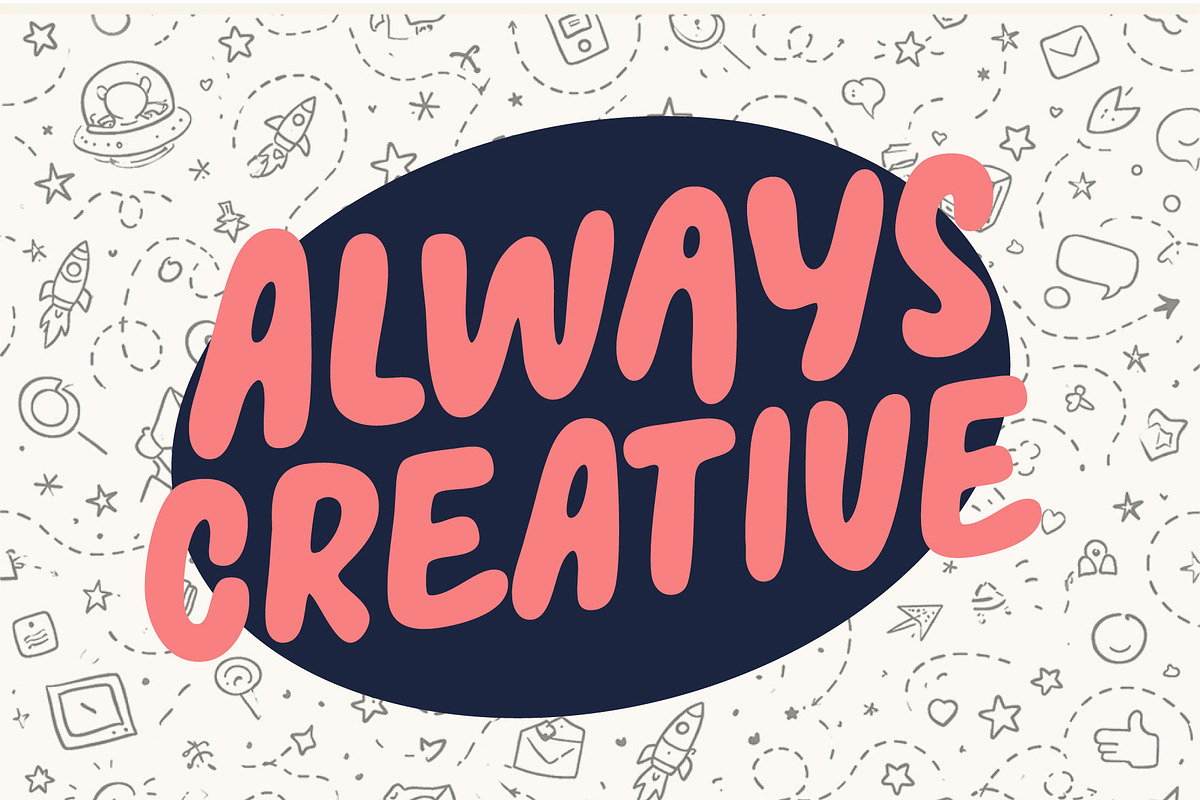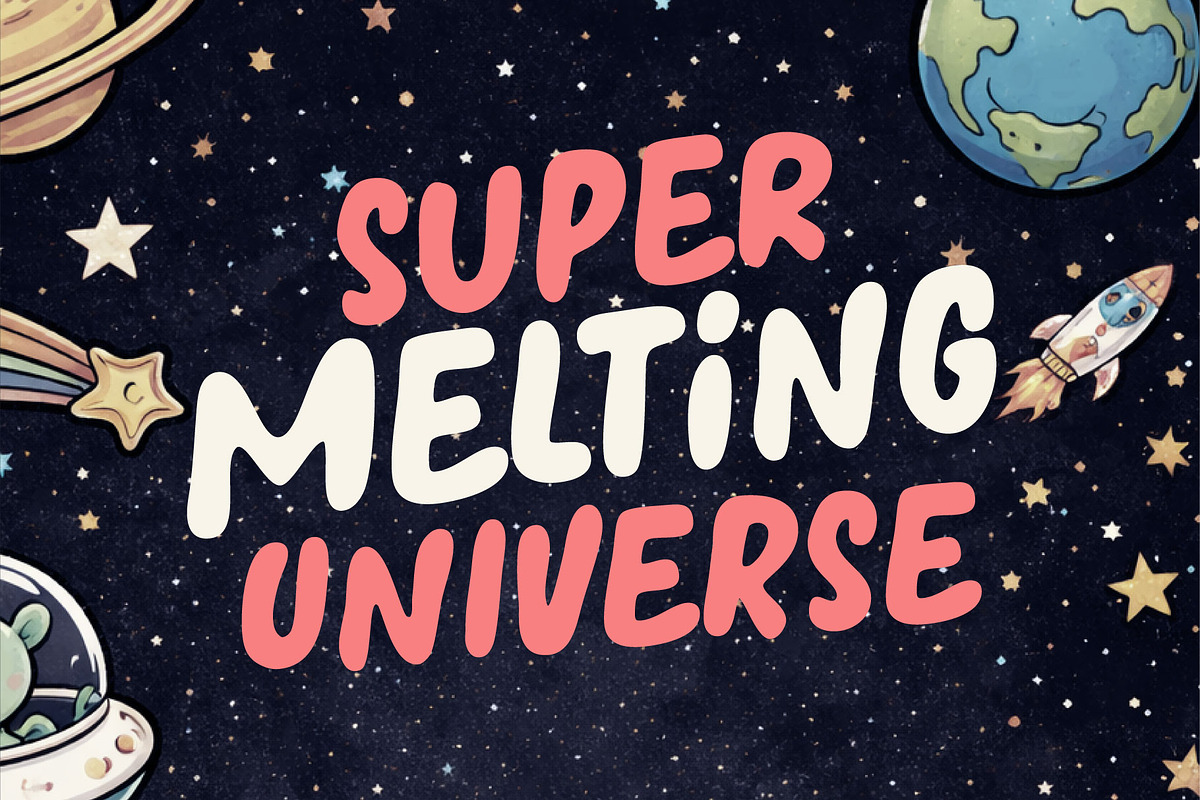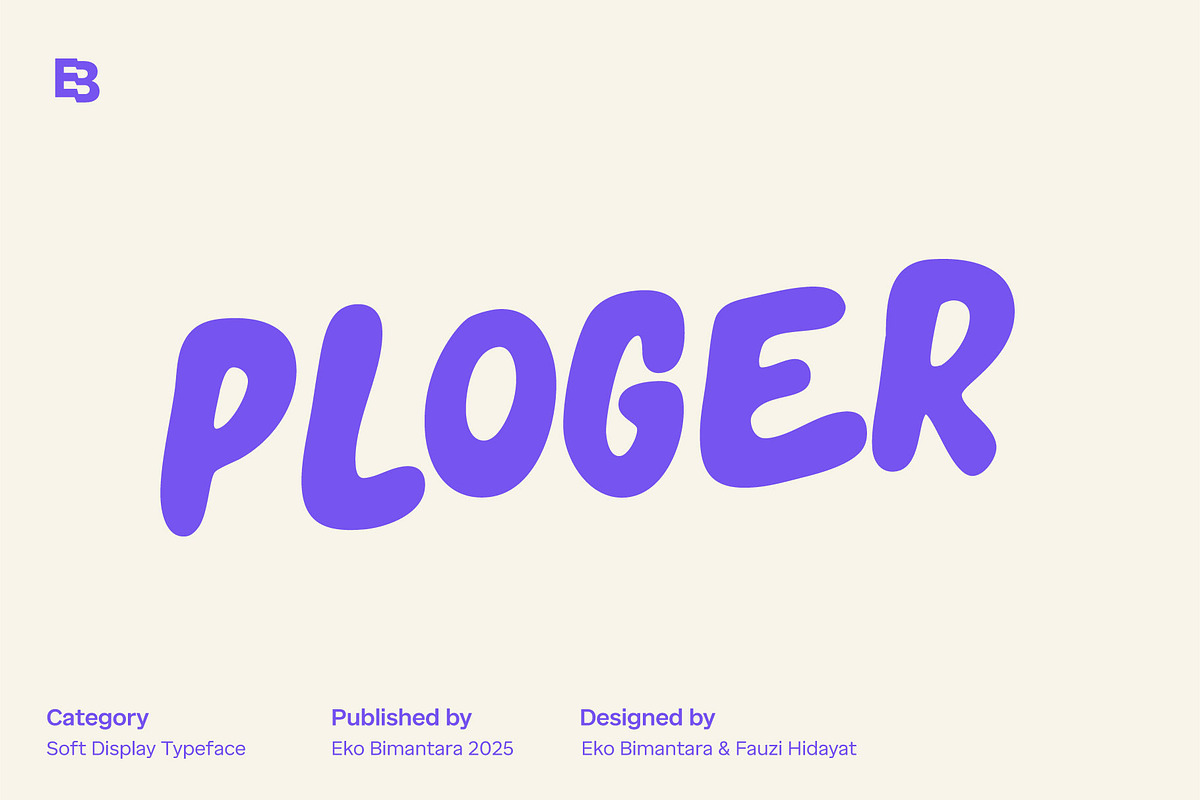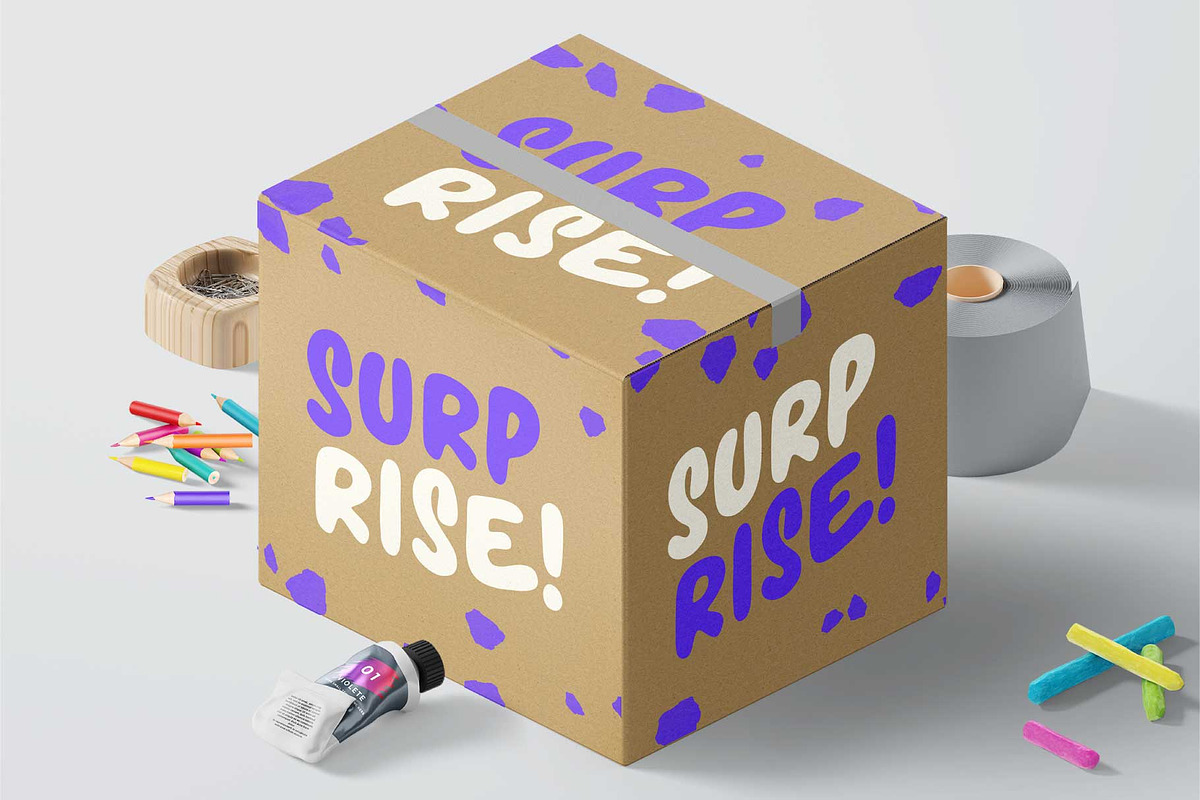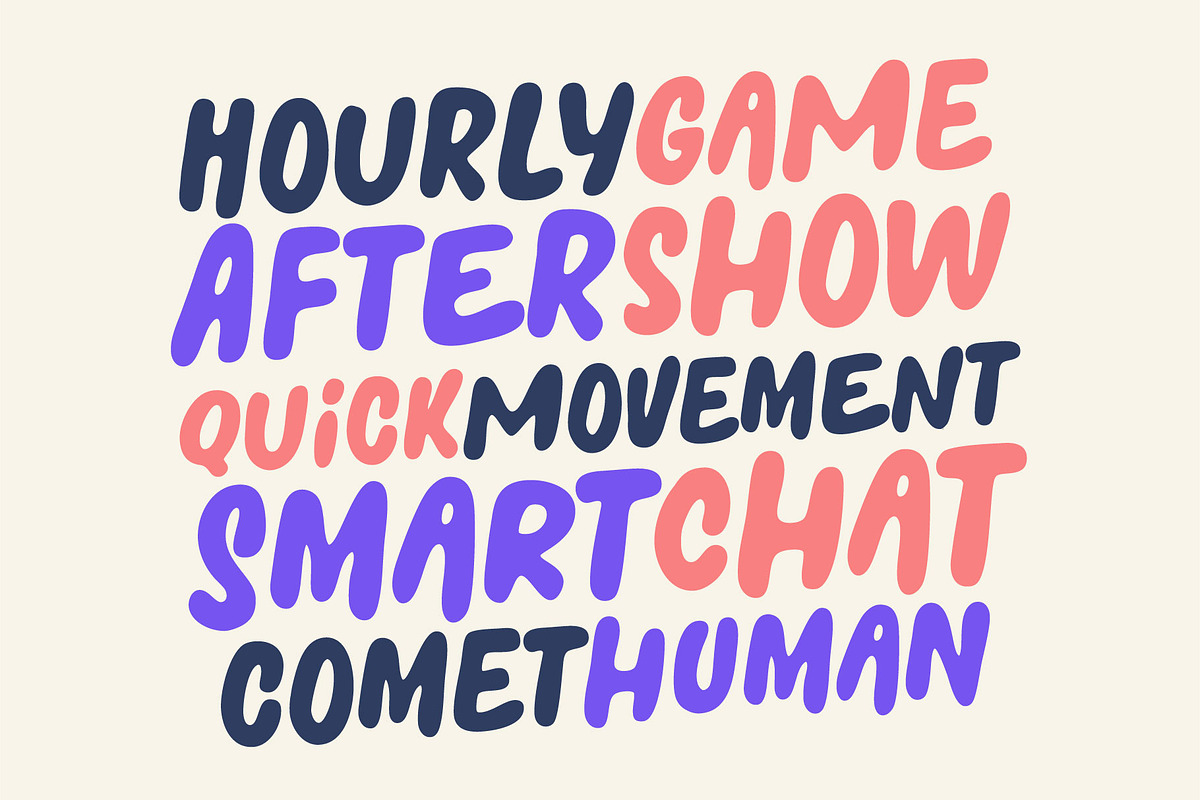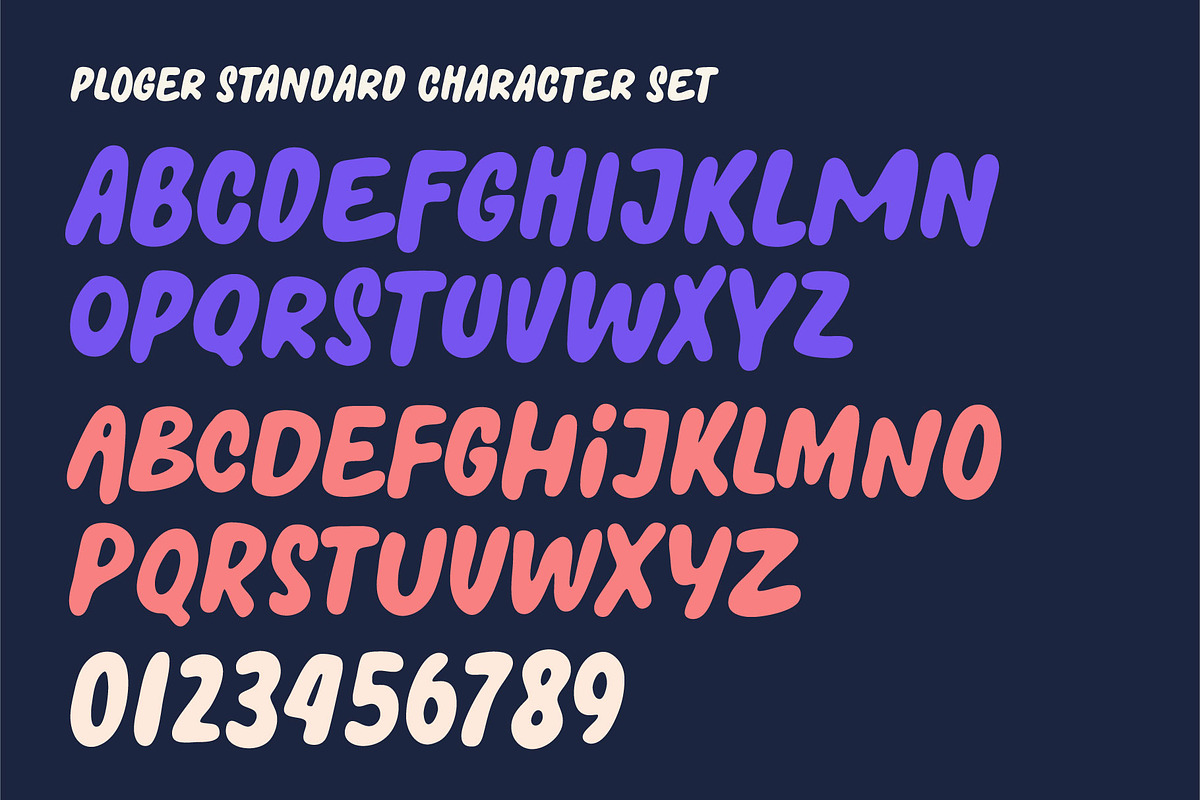
Ploger; Bold Display Font
Ploger is a fun and soft display typeface designed to deliver a cheerful and inviting visual tone. With its smooth curves and playful character, Ploger works perfectly for joyful themes, making it an excellent choice for food brands, children’s products, packaging, posters, and eye-catching headlines that aim to feel friendly, warm, and approachable across both print and digital designs.